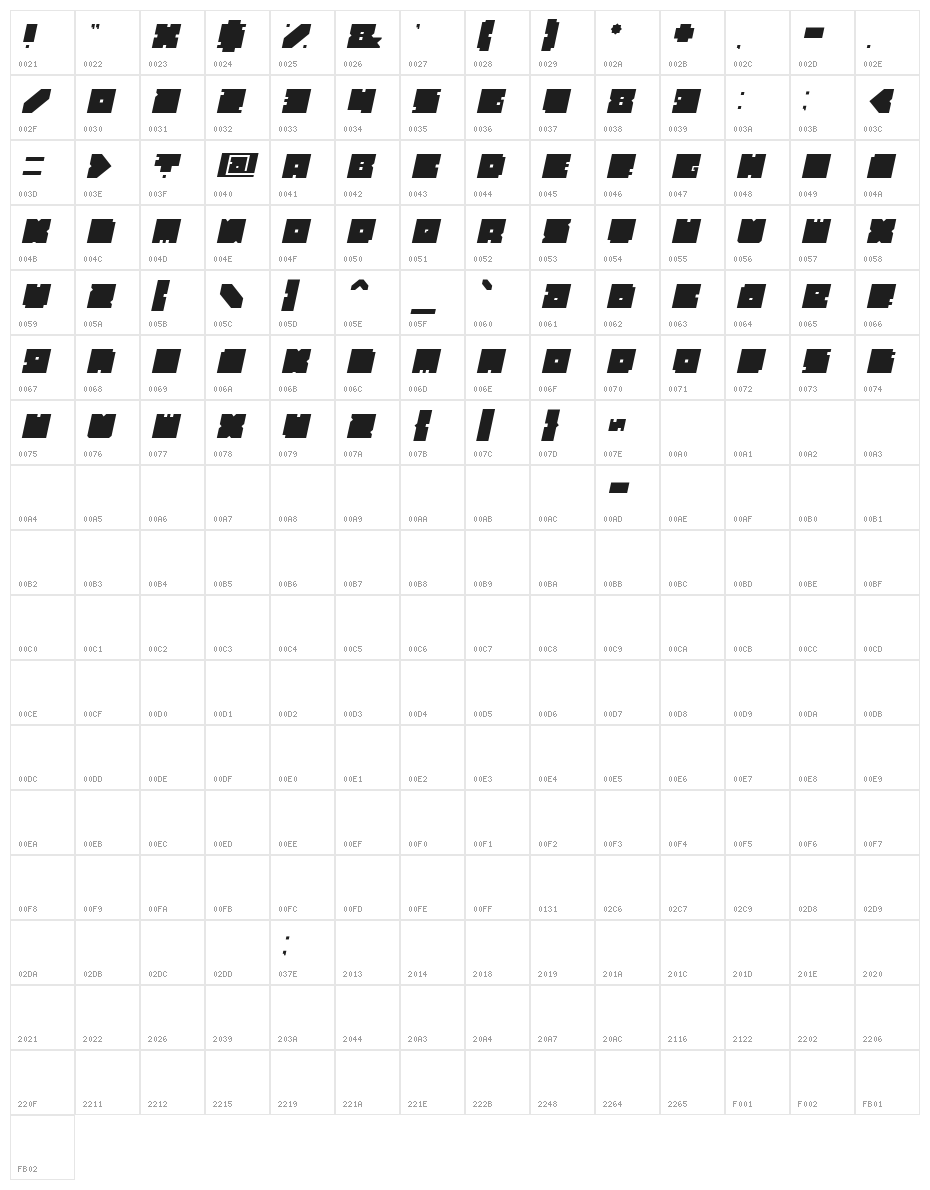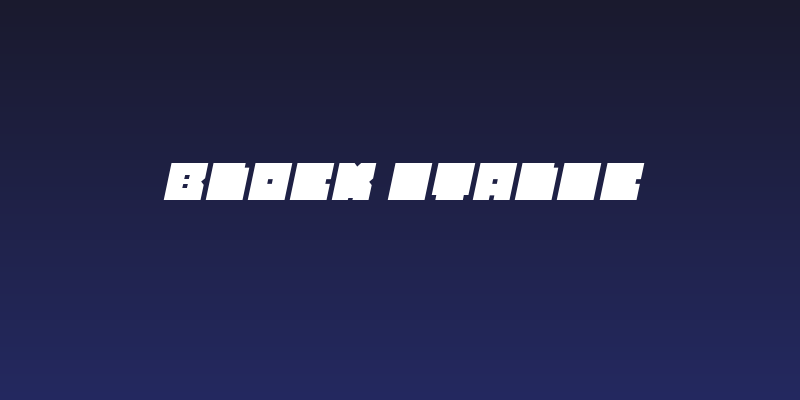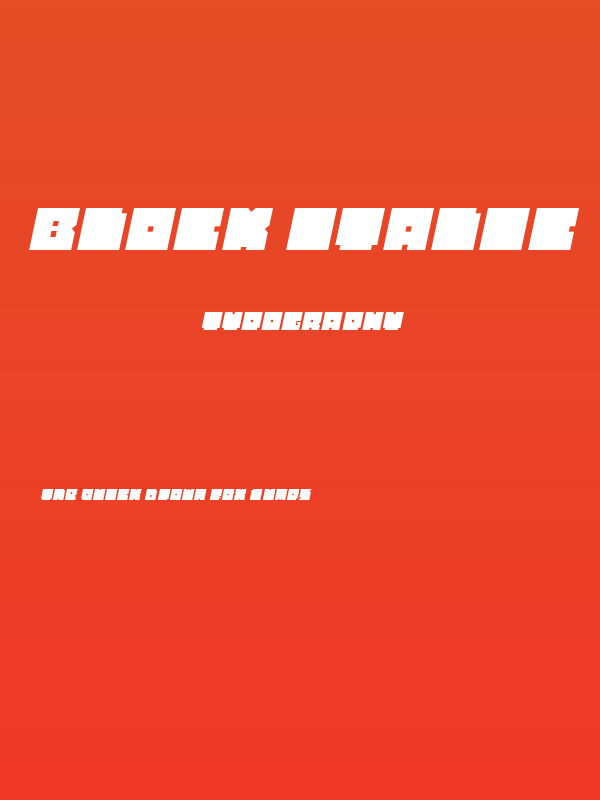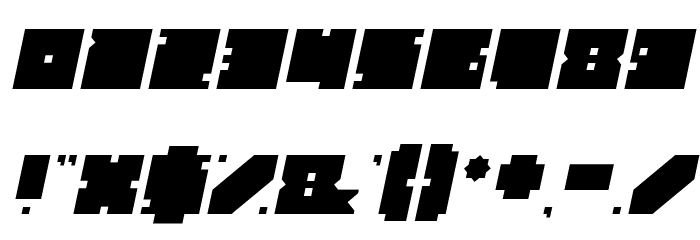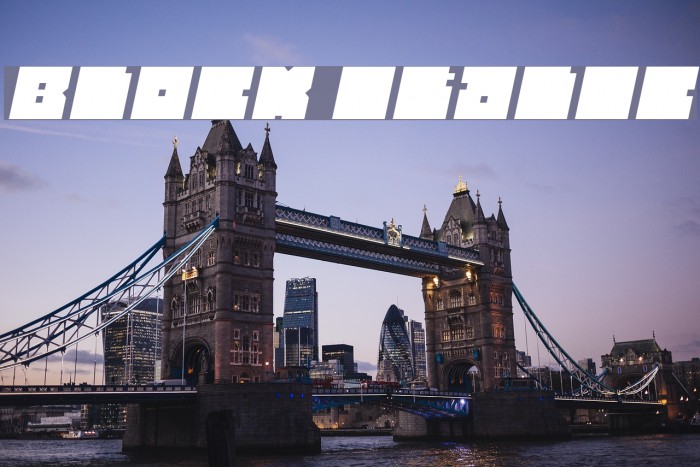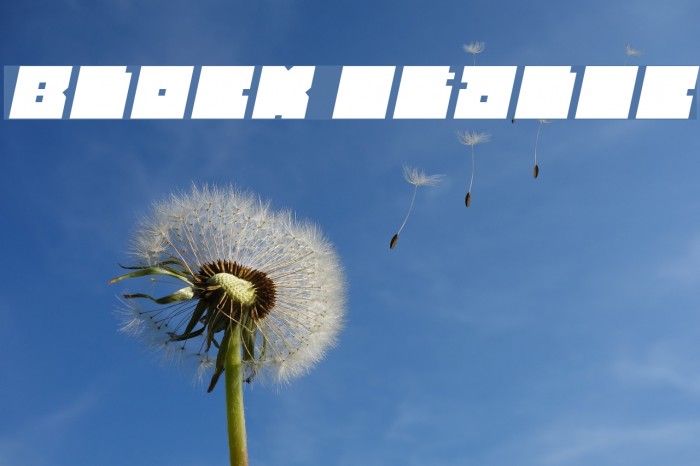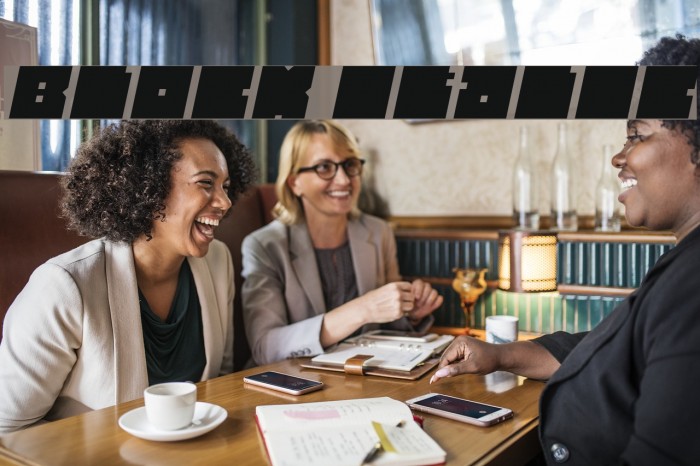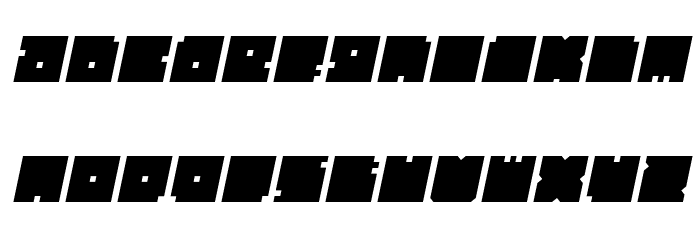
BLOCK Italic Font
This bold, italicized font features a blocky, geometric design with sharp angles and a strong presence. The characters are uniformly thick, creating a sense of solidity and impact. The italic slant adds a dynamic feel, enhancing the font's modern and assertive style. Each letter and number is distinct, with minimal spacing between characters, contributing to a compact and cohesive look. The font's boldness and unique structure make it suitable for attention-grabbing designs.
| Proposed Projects | Ideal for posters, headlines, logos, and branding materials that require a strong visual impact. |